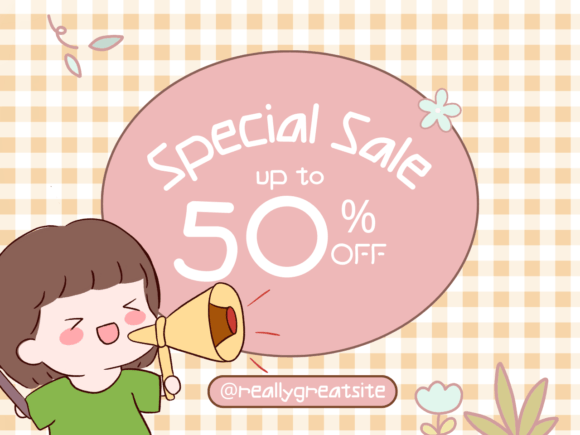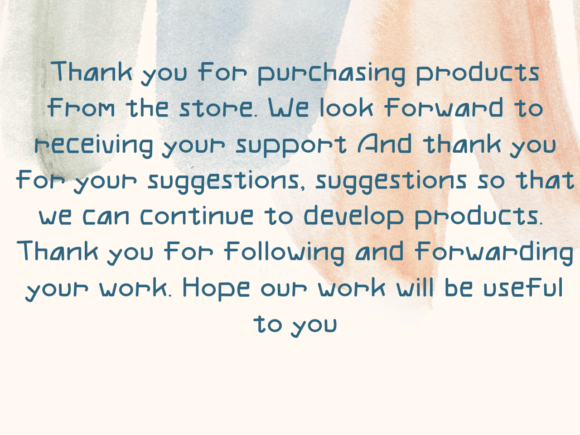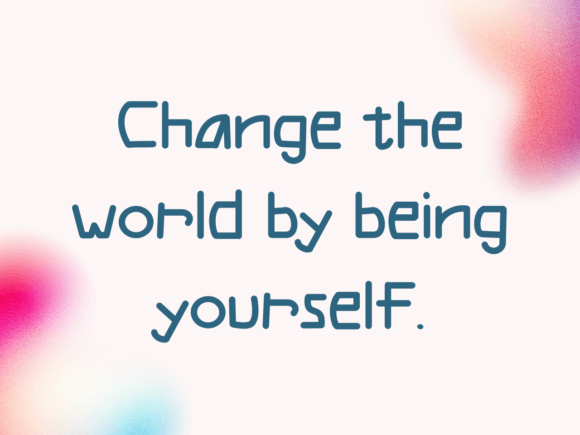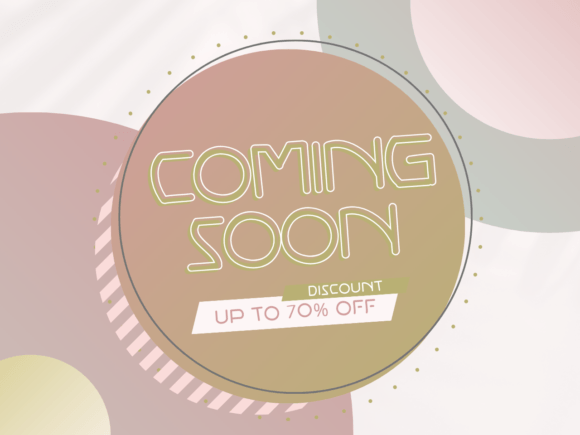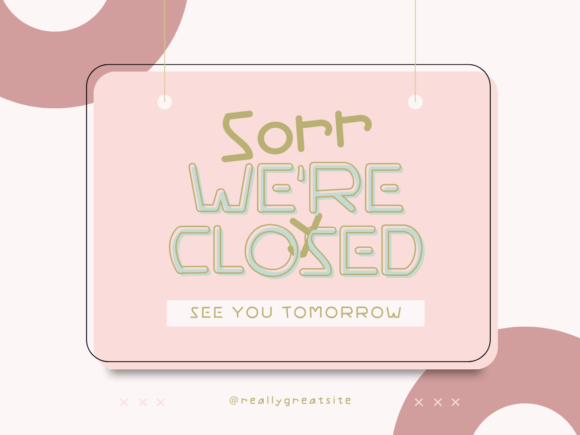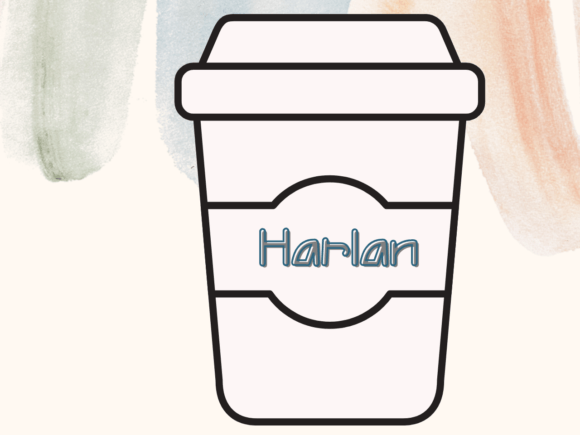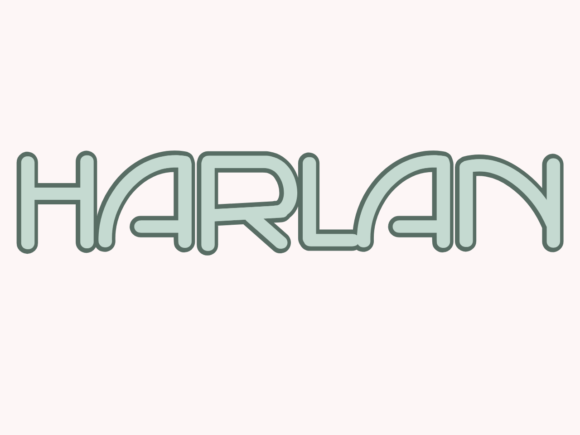
Discover the Unique Charm of Haran Font: Elevate Your Designs with Distinctiveness
In the world of typography, fonts play a crucial role in conveying messages, expressing emotions, and creating a lasting impression. Among the numerous fonts available, Haran Font stands out for its distinctive characteristics, making it an excellent choice for designers, crafters, and anyone looking to add a personal touch to their work. In this article, we’ll explore the unique features of Haran Font and how it can elevate your designs, whether you’re creating greeting cards, wedding cards, quotes, goodnotes, planners, handwritten notes, logos, or educational materials.
The Distinctive Identity of Haran Font
Haran Font boasts its own identity, setting it apart from other fonts. Its unique style and charm make it an ideal choice for those seeking to add a personal touch to their work. With Haran Font, you can create designs that are not only visually appealing but also distinctive and memorable. Whether you’re a designer, crafter, or simply someone who loves to write, Haran Font can help you express yourself in a way that’s both creative and impactful.
Endless Creative Possibilities with Haran Font
The versatility of Haran Font is one of its most significant advantages. It can be used in a wide range of applications, including:
- Greeting Cards: Add a personal touch to your greeting cards, making them stand out from the crowd.
- Wedding Cards: Make your wedding cards truly special with the elegant and distinctive style of Haran Font.
- Quotes: Create visually appealing quotes that inspire and motivate, using Haran Font’s unique charm.
- Goodnotes: Elevate your digital notes with a touch of personality, making studying and note-taking more enjoyable.
- Planners: Design planners that are both functional and stylish, using Haran Font to add a creative twist.
- Handwritten Notes: Add a personal touch to your handwritten notes, making them more special and meaningful.
- Logos: Create distinctive logos that represent your brand’s personality and values, using Haran Font.
- Teachers: Make your educational materials more engaging and interactive, using Haran Font to add a creative touch.
Why Choose Haran Font?
With so many fonts available, why choose Haran Font? Here are just a few reasons:
- Unique Style: Haran Font has a distinctive style that sets it apart from other fonts.
- Versatility: It can be used in a wide range of applications, from greeting cards to logos.
- Ease of Use: Haran Font is easy to read and write, making it perfect for both digital and print materials.
- Customization: With Haran Font, you can create custom designs that reflect your personality and brand.
Tips for Using Haran Font Effectively
To get the most out of Haran Font, here are some tips:
- Experiment with Sizes: Play with different font sizes to create visual interest and hierarchy.
- Combine with Other Fonts: Pair Haran Font with other fonts to create a unique and harmonious design.
- Use Colors: Add colors to your design to make it more vibrant and engaging.
- Keep it Simple: Don’t overcomplicate your design – simplicity and elegance are key to making a lasting impression.
Haran Font is a unique and versatile font that can elevate your designs, add a personal touch to your work, and make your creations stand out. With its distinctive style, ease of use, and endless creative possibilities, Haran Font is an excellent choice for designers, crafters, and anyone looking to add a touch of personality to their work. So why not give Haran Font a try and discover the power of distinctive typography for yourself?